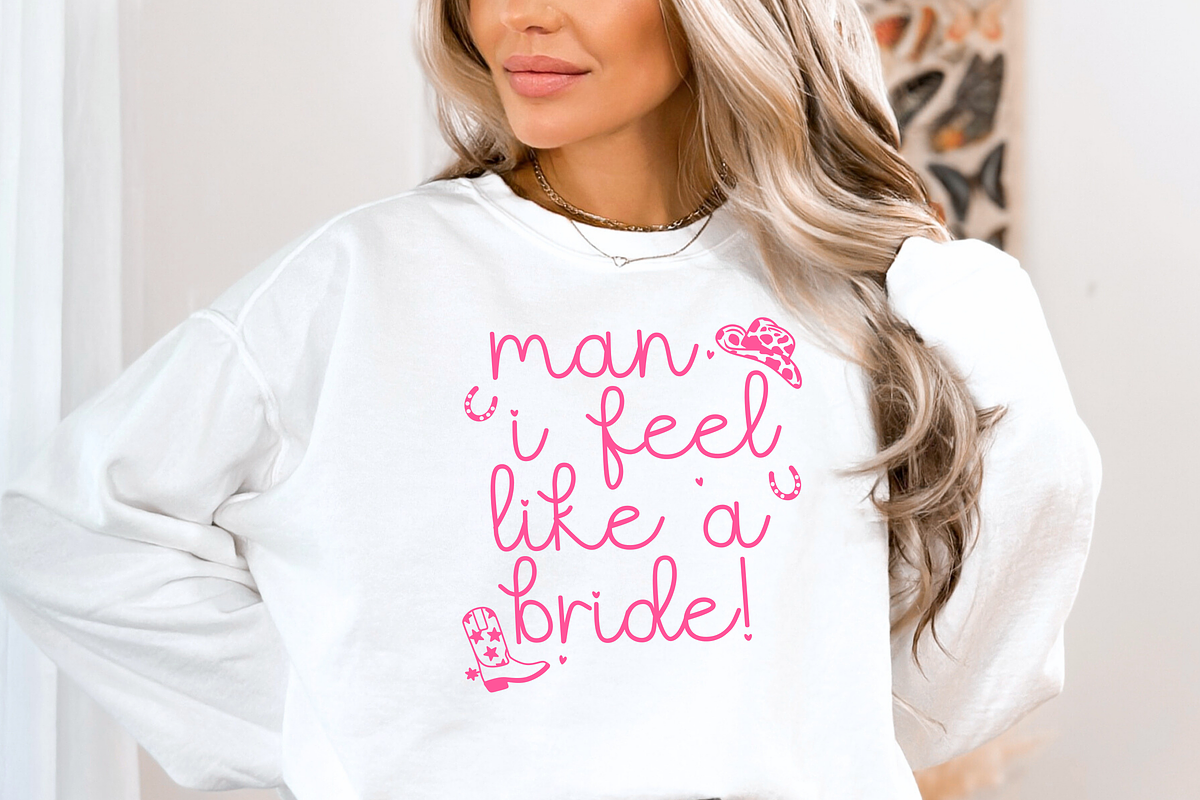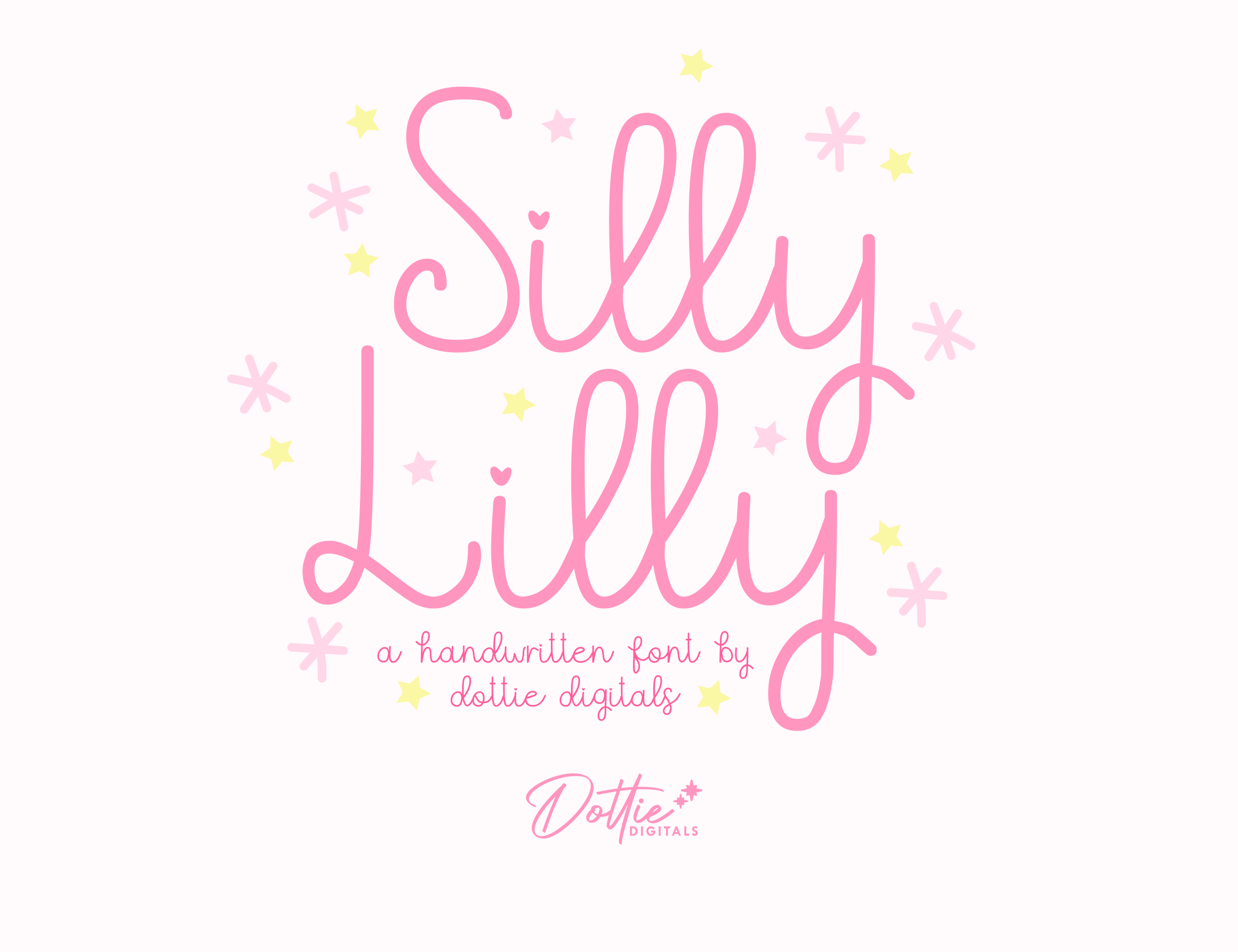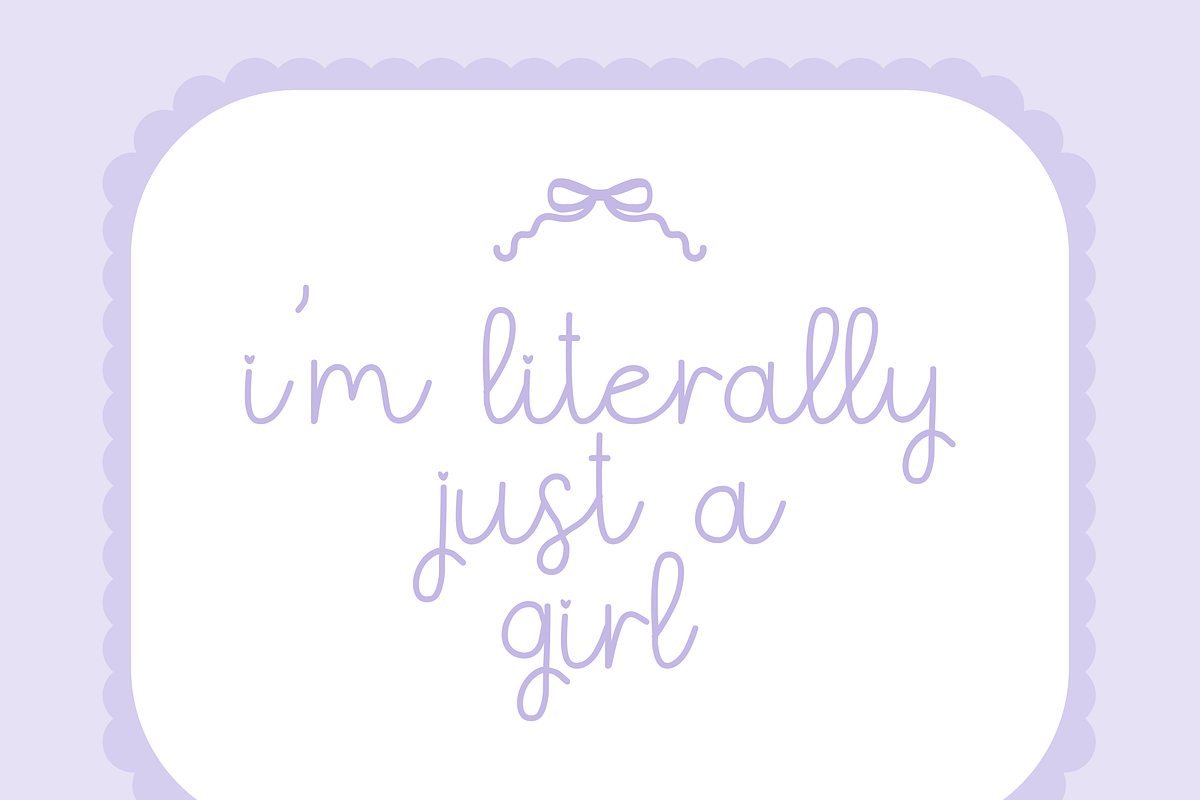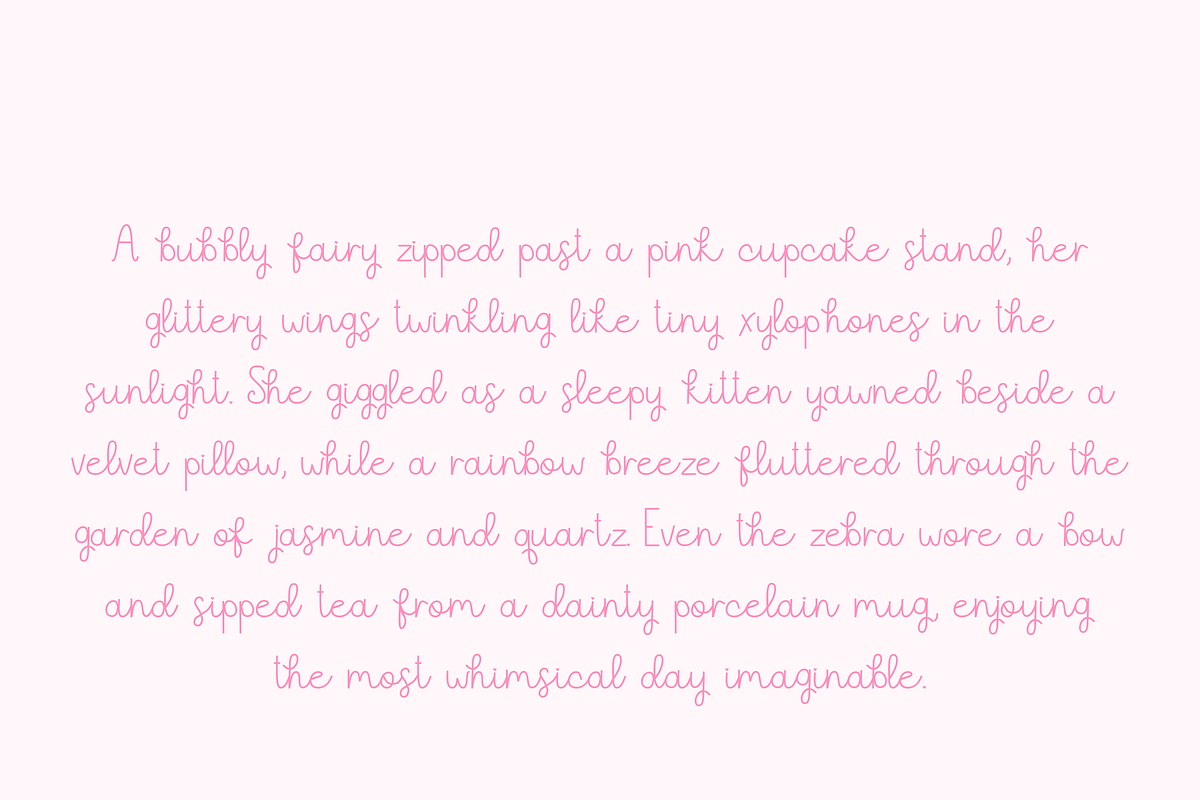
Silly Lilly Font – Handwritten Sans-
This Dottie Digitals font is a versatile, high-quality typeface designed for creatives and crafters. Whether you're making custom Cricut vinyl projects, designing in Canva, or editing in Adobe or Inkscape, this font is optimized for smooth, clean results across all platforms.
Why You'll Love It:
Smooth, easy-to-cut lines for vinyl, paper, and other materials